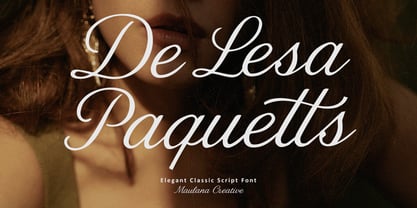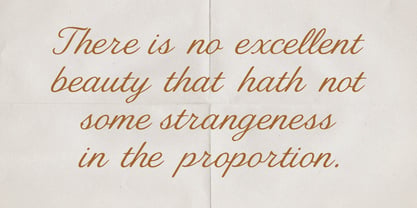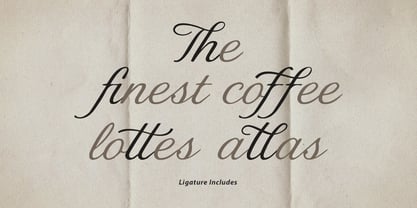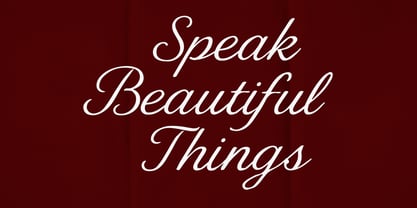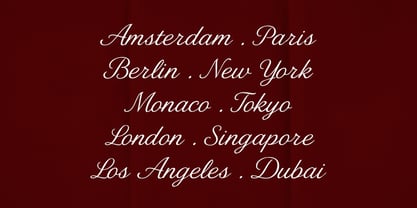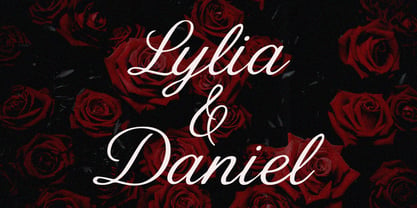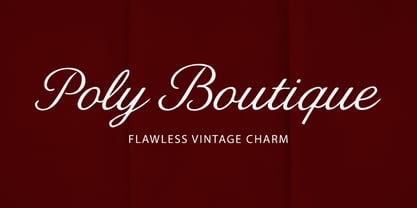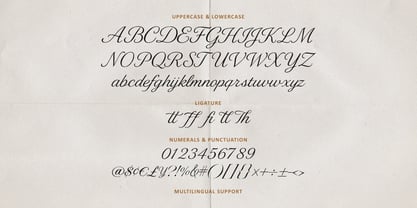
MC De Lesa Paquetts
by Maulana Creative
The MC De Lesa Paquetts Font Family was designed by Gilang Maulana and published by Maulana Creative. MC De Lesa Paquetts contains 1 styles. More about this family
Introduce a touch of sophisticated luxury to your designs with De Lesa Paquetts, a classic script font meticulously crafted by Maulana Creative. Inspired by traditional copperplate calligraphy with a modern, clean twist, this font embodies the essence of "Flawless Vintage Charm." De Lesa Paquetts features fluid, graceful connections and balanced proportions, making it the perfect choice for high end branding. Whether you are designing a romantic wedding invitation, a premium boutique logo, or an editorial layout for a fashion magazine, this font provides an instant air of exclusivity. Perfect For: - Wedding Stationery: Invitations, RSVP cards, and envelopes. - Premium Branding: Luxury logos, boutique shopfronts, and jewelry packaging. - Editorial Design: Magazine headers, quotes, and book covers. - Social Media: Aesthetic Pinterest pins and Instagram lifestyle quotes.
Designers: Gilang Maulana
Foundry: Maulana Creative